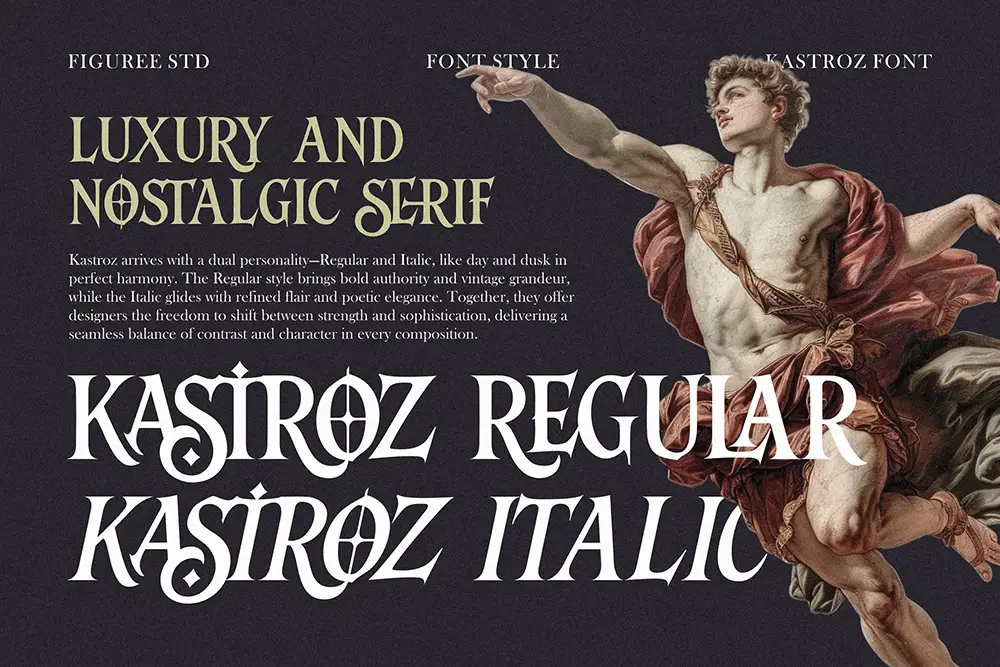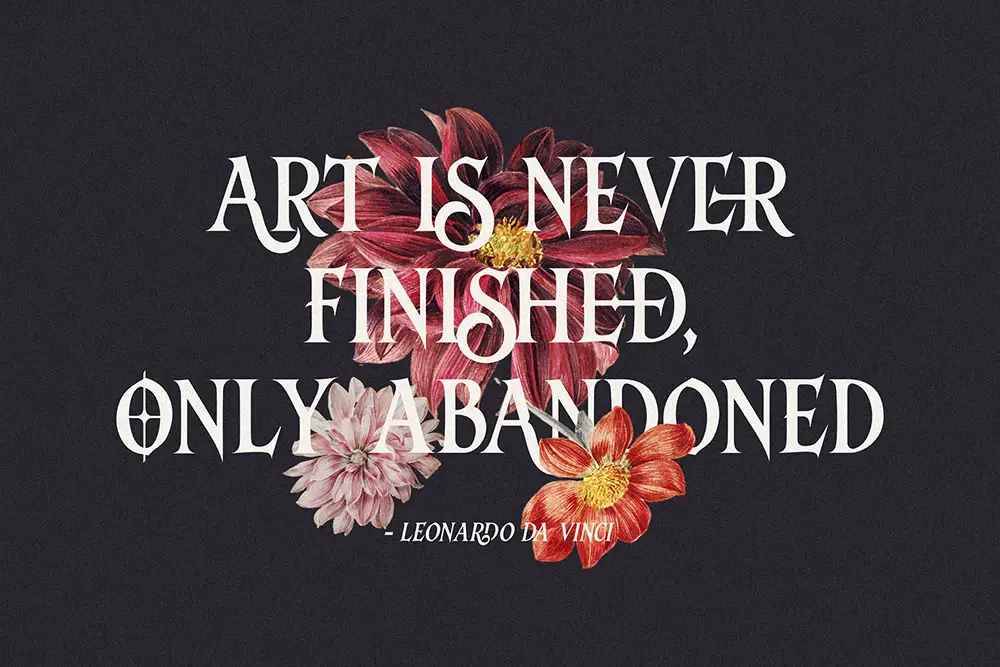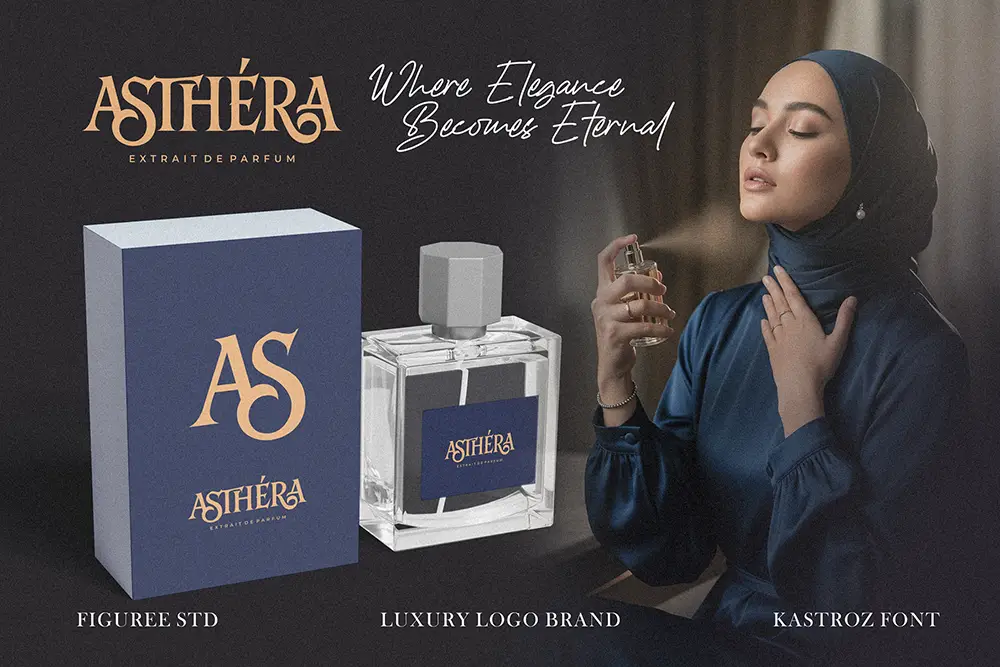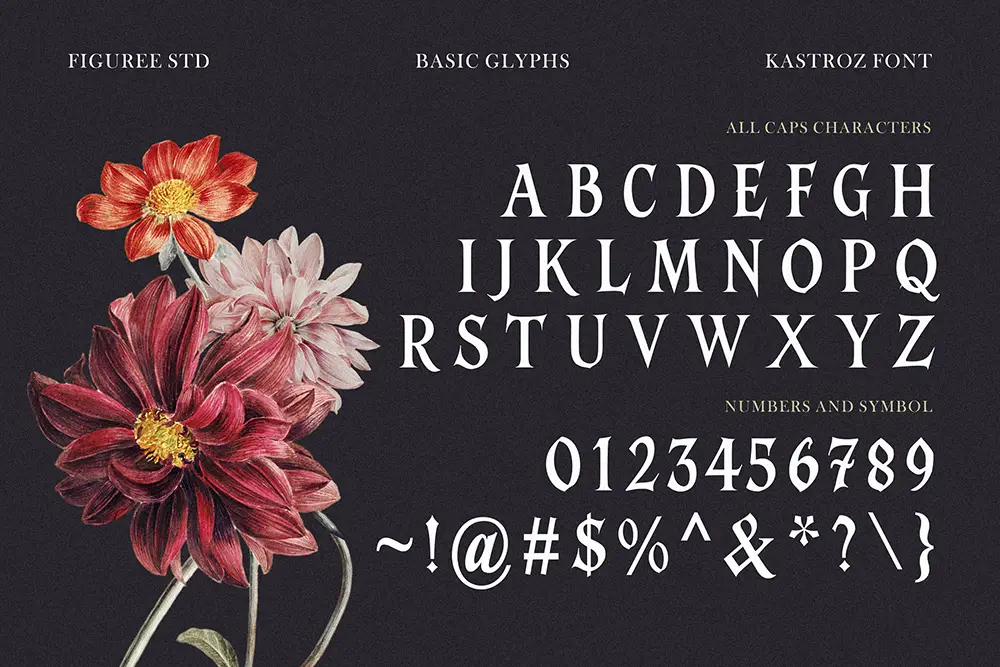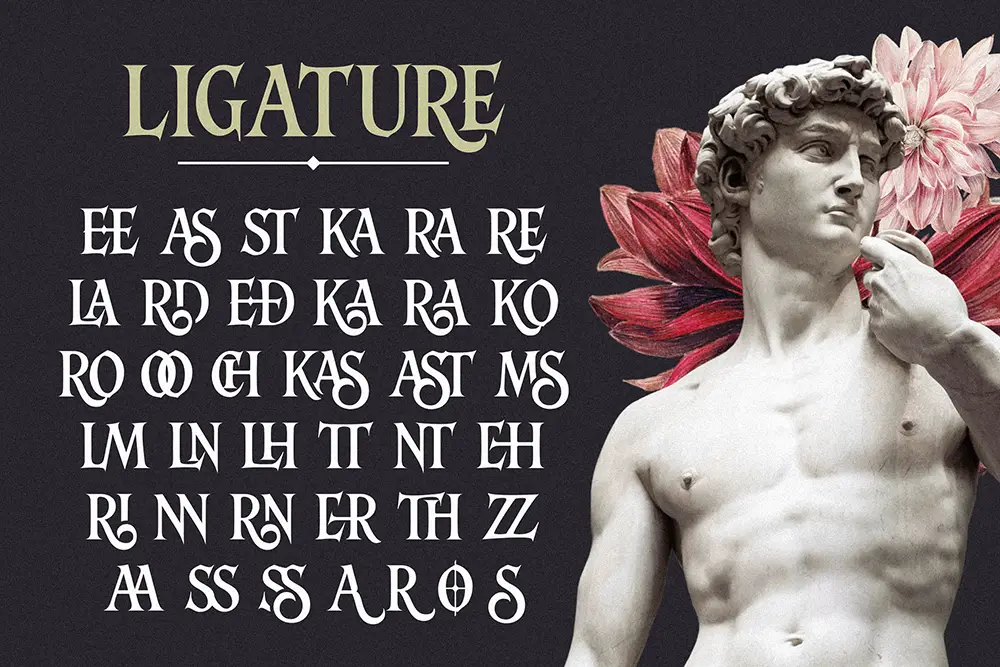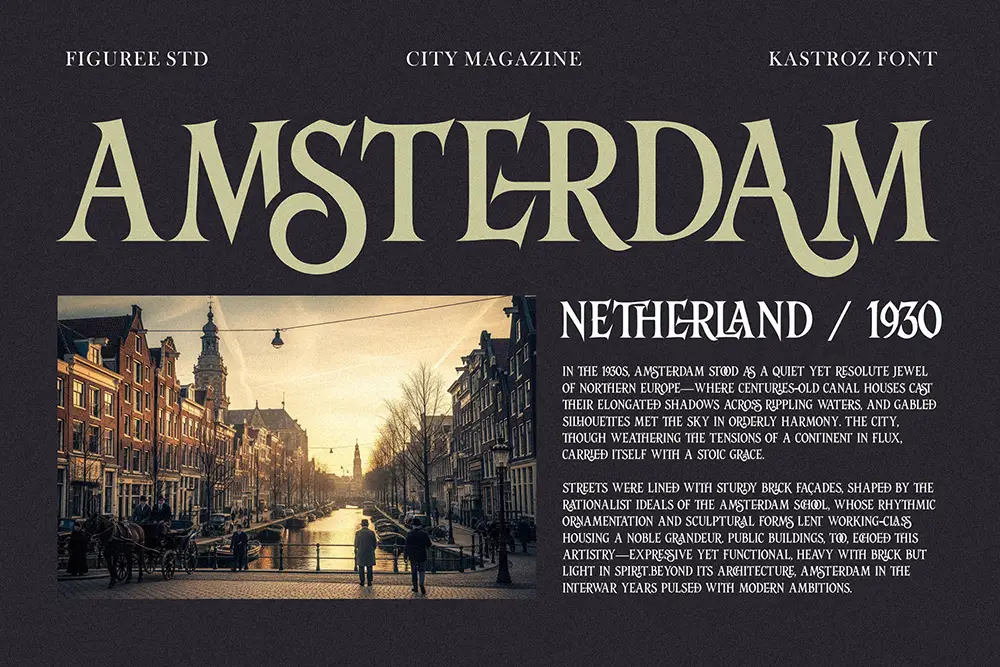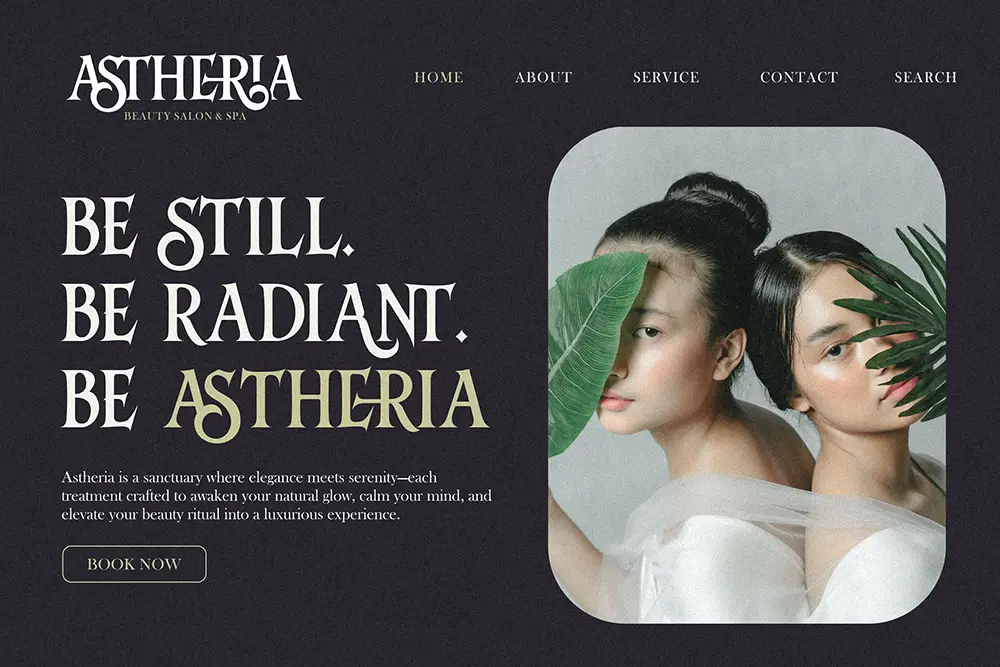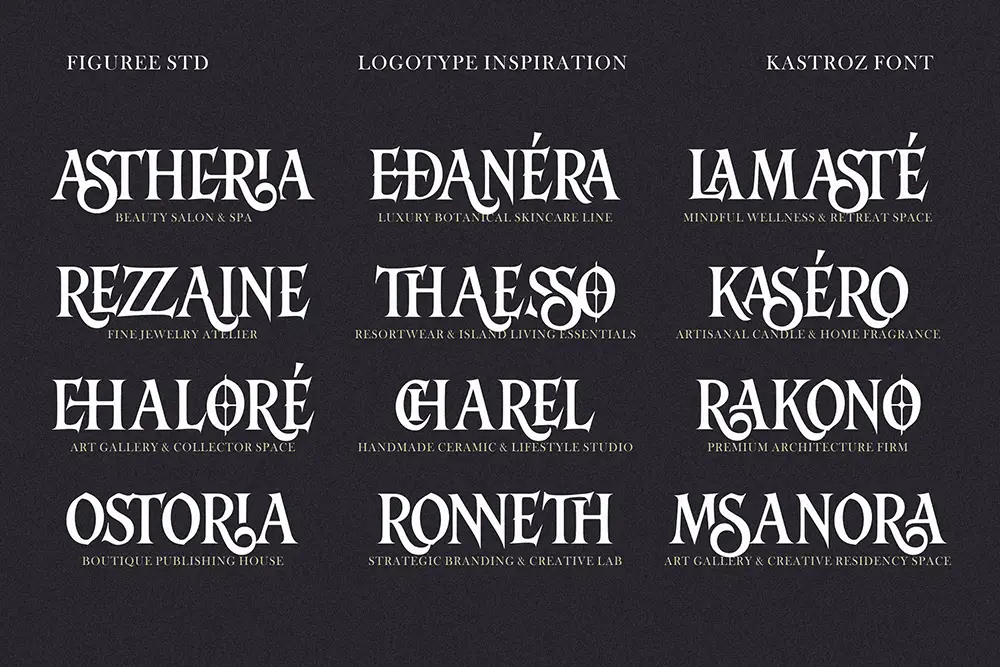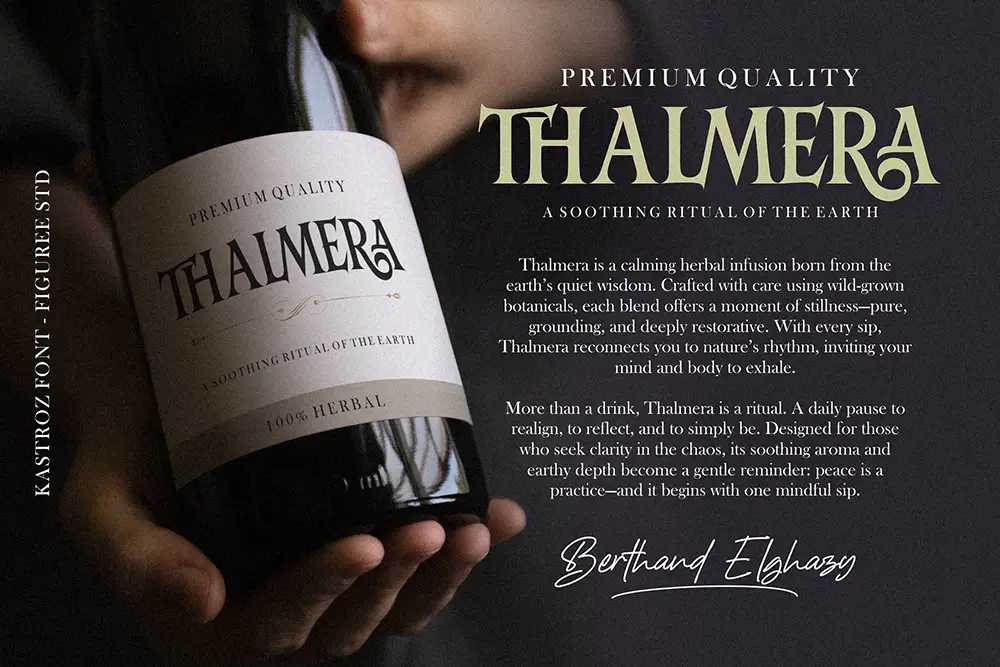
Define Legacy with Kastroz – A Timeless Luxury Vintage Serif Font with Elegant Ligatures
Kastroz is a bold and refined luxury vintage serif font that brings high-end aesthetics to your most prestigious design projects. With its all-caps structure, sharp elegance, and a variety of unique ligatures and stylistic alternates, Kastroz stands as the ideal serif typeface for those seeking timeless class and commanding presence.
Inspired by classic serif typography with a contemporary twist, Kastroz is designed to shine in premium branding, editorial layouts, packaging, and logo applications. The strong yet graceful forms create a visual rhythm that communicates authority and luxury without overwhelming the message.
Key Features:
- All-Caps Typeface with High Contrast Forms
- Regular and Italic Styles Included
- Dozens of Unique Ligatures for Custom Look
- Carefully Crafted Stylistic Alternates for Variety
- Multilingual Support (Latin Extended)
- Clean, Elegant Display Performance
- Perfect for Logos, Packaging, Editorial, and Branding
Why Designers Love Kastroz:
Designers choose Kastroz for its ability to blend luxury serif font design with modern versatility. The inclusion of ligatures and stylistic alternates opens up endless creative combinations, allowing for visually rich headlines, logos, and monograms that feel unique and artful.
In editorial settings, Kastroz delivers perfect typographic tension—strong enough to carry a masthead, yet refined enough for subheaders, pull quotes, or title pages. Its all-caps nature ensures consistency and strength, while the elegant serifs and smooth curves give each composition character and heritage.
Whether you’re creating a luxury brand identity, a high-end product label, or a statement logo, Kastroz gives you a toolkit of options for expressive, polished results.
The Power of Ligatures and Alternates:
Kastroz is packed with creative ligatures that allow letters to interact in refined, flowing ways. This is especially useful for crafting custom logotypes or packaging designs that demand individuality. The stylistic alternates offer further variety—whether you want a flourish, a simplification, or a contrast between classical and modern tones.
Using Kastroz, designers are empowered to bring their typographic vision to life, supported by a font that’s as flexible as it is luxurious.
Ideal Uses for Kastroz:
- Premium Product Labels & Packaging
- Editorial Design and Magazine Spreads
- Luxury Branding Systems
- Logo Design for High-End Businesses
- Invitation Design and Stationery
- Hotel & Spa Identity Systems
- Wine, Perfume, or Artisanal Branding
Searching for a luxury serif font with both strength and elegance? Kastroz delivers. This vintage-inspired serif typeface gives your design a touch of old-world class with modern-day polish. The all-caps style reinforces strong branding presence, while the subtle detailing offers elegance in every letterform.
As a serif font with ligatures and stylistic alternates, Kastroz allows for exceptional visual customization. From intricate logo systems to refined editorial spreads, you can use this font to bring unique voice and beauty to every layout. For designers in search of a versatile serif display font for packaging or branding, Kastroz is the perfect match.
The inclusion of italic styles makes it even more dynamic. Italic versions of serif fonts often lean into sophistication and drama—Kastroz Italic is no exception. Use it for subtext, emphasis, or elegant contrast without breaking visual consistency.
Unlike ordinary typefaces, Kastroz was crafted with balance and hierarchy in mind. Every letter spacing, curve, and connection was refined to ensure legibility and style across print and digital formats. It’s a go-to tool for designers aiming for impact and class.
Kastroz is more than a font—it’s a heritage in motion. With its confident all-caps structure, abundant ligatures, and luxurious serif details, it transforms any text into a refined visual statement. It’s ideal for designers who seek timeless sophistication with room for modern expression. From classic packaging to bold editorial, Kastroz gives your typography the authority it deserves.